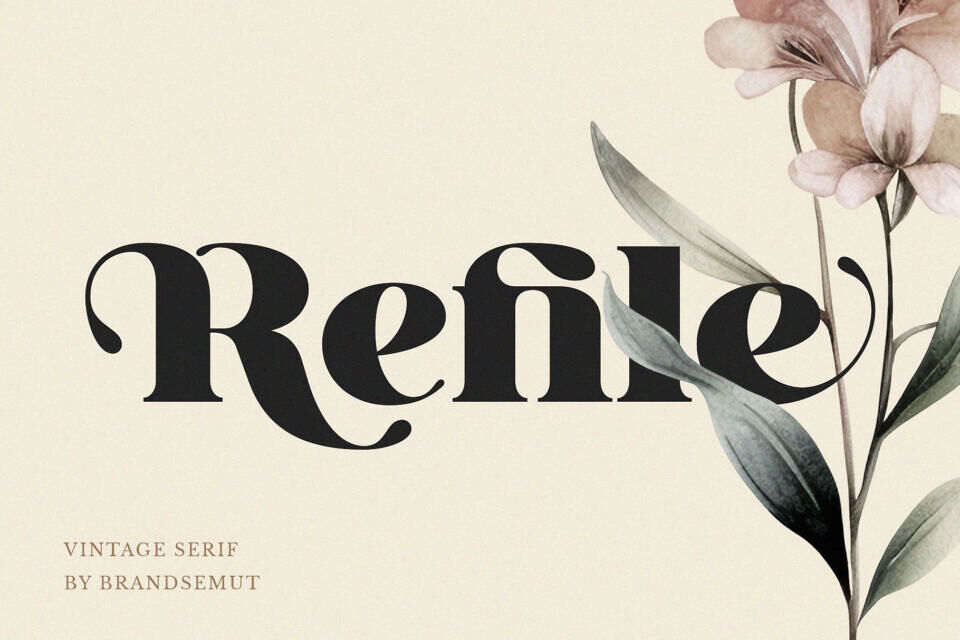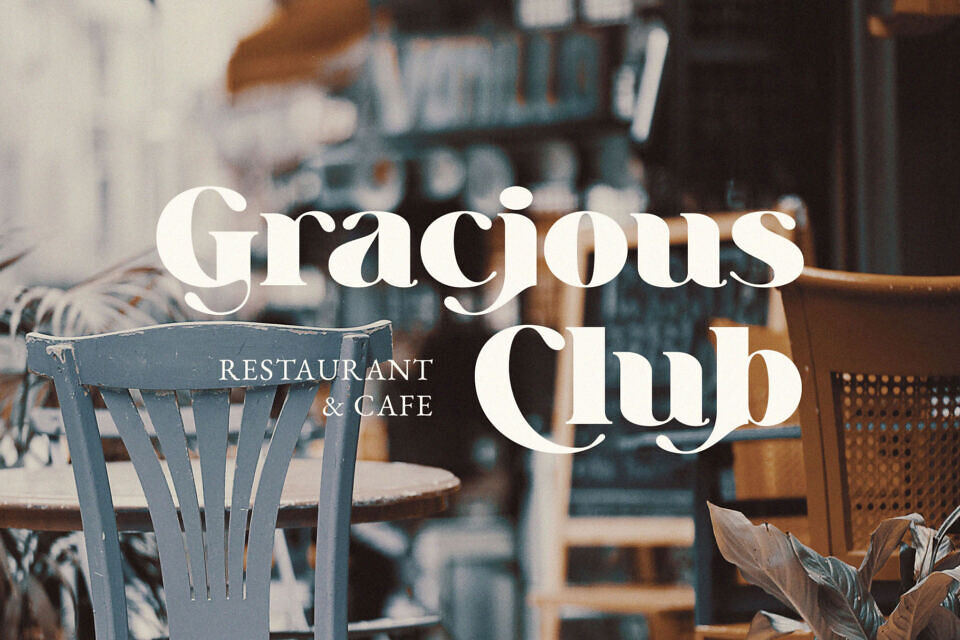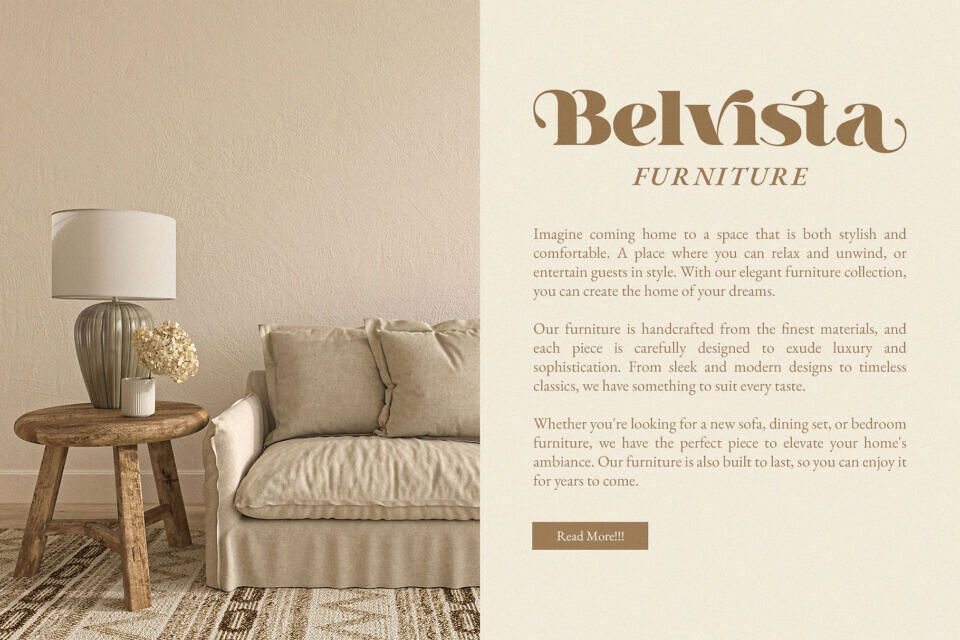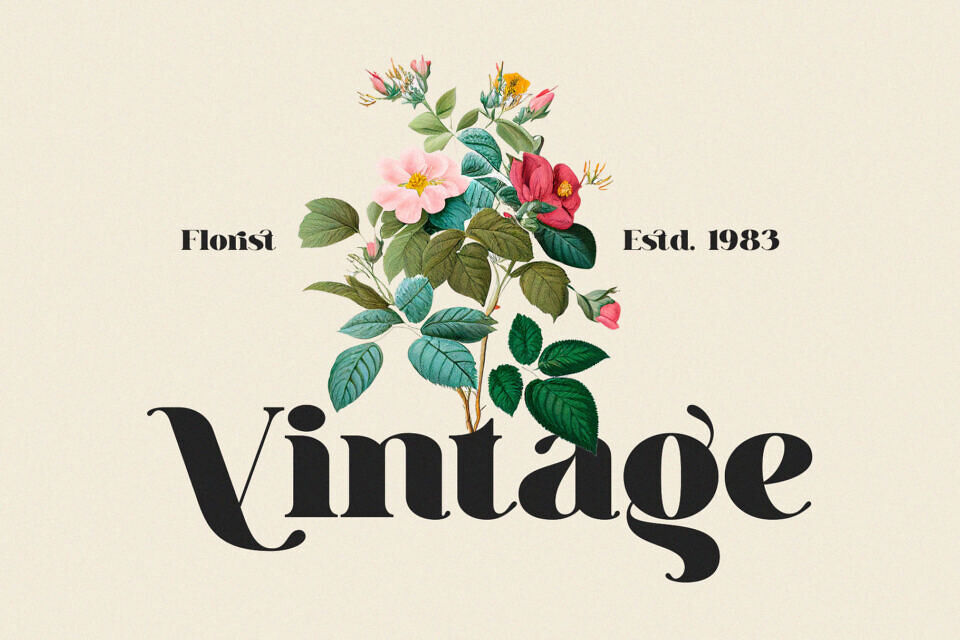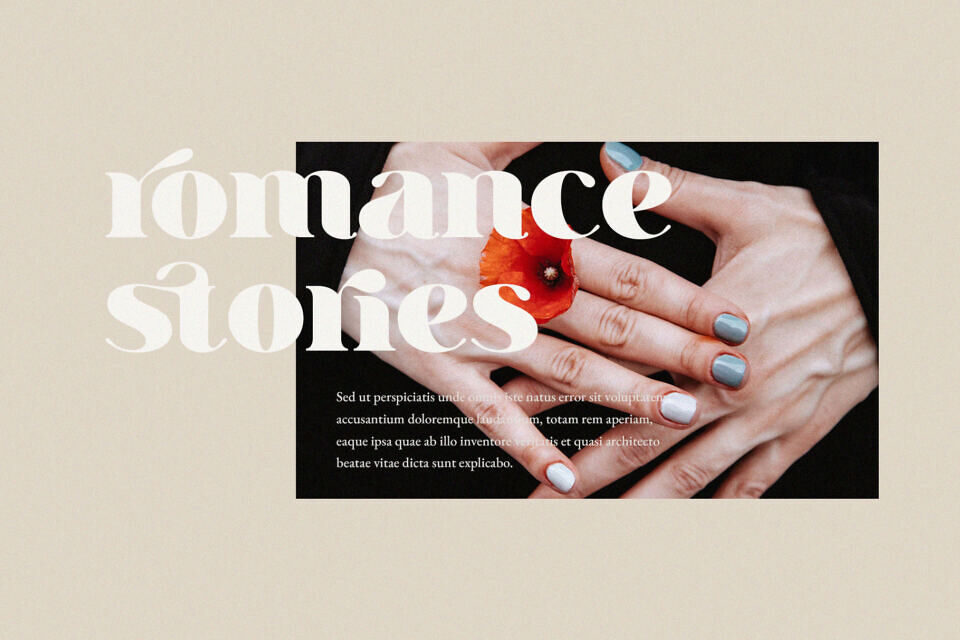
Refile Font
Refile is a vintage and modern display serif, best used as a display for headings, logos, branding, magazines, product packaging, and invitations. Refile equipped with Ligature and many Alternates and come with clean lines and smooth curves giving any project an extra touch of class.